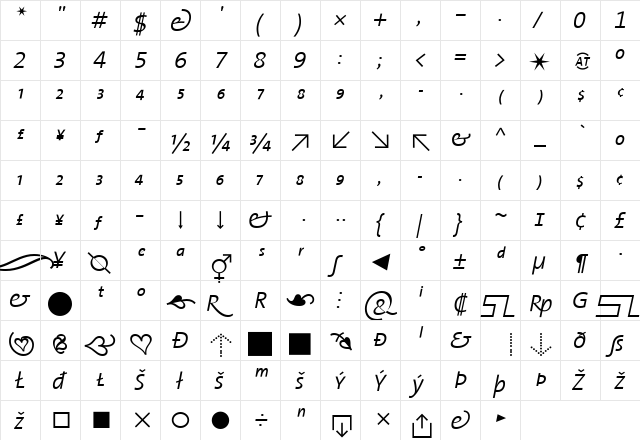
The Sans Semi Light- Italic Font Preview
The Sans Semi Light- Italic
The Sans Semi Light- Italic Font Details
Design Context for The Sans Semi Light- Typeface
The Sans Semi Light- is a composed and adaptable typeface that performs quietly and consistently across a wide range of design contexts. The dynamic lean of this cut emphasises speed and emphasis in any layout. Its slender proportions lend an understated elegance to any composition.
Pro Tip: Use The Sans Semi Light- for emphasis, pull quotes, and subheadings where its slanted energy can add rhythm to the layout.